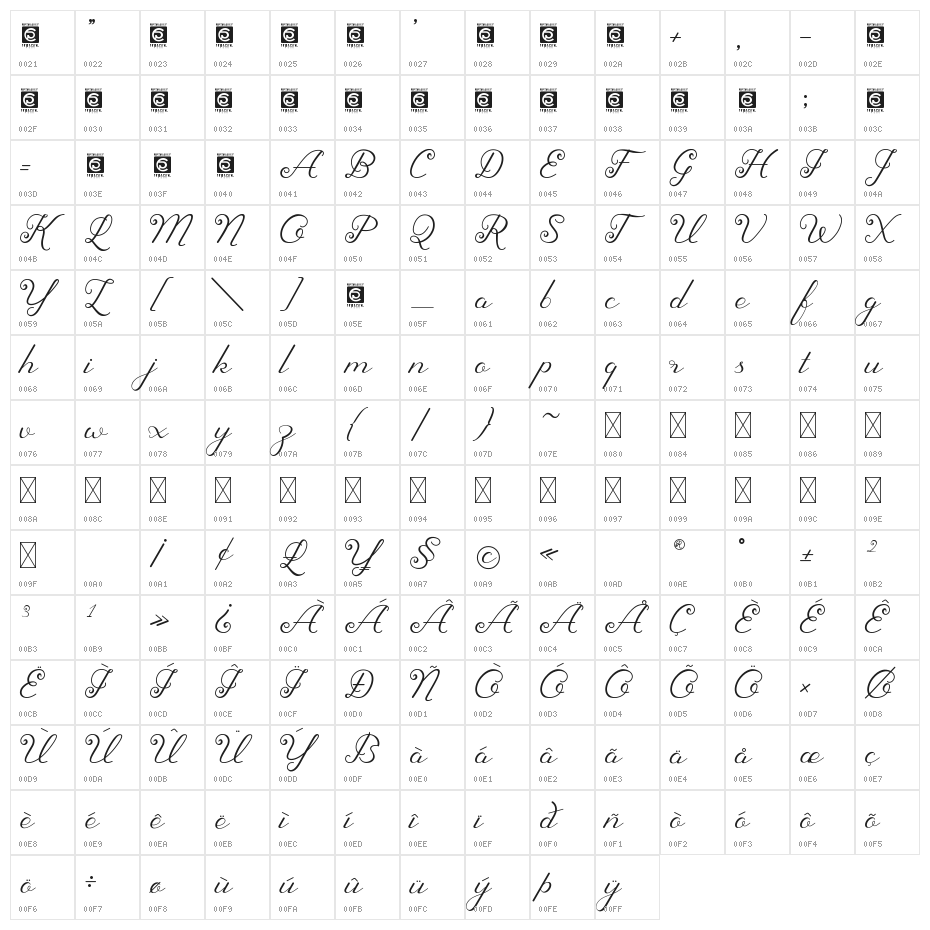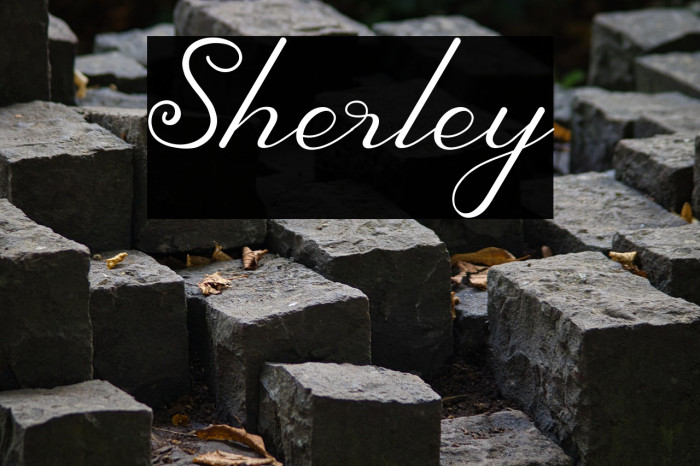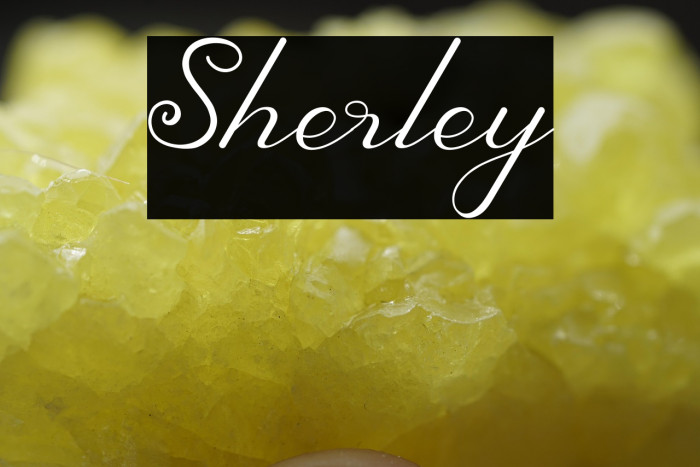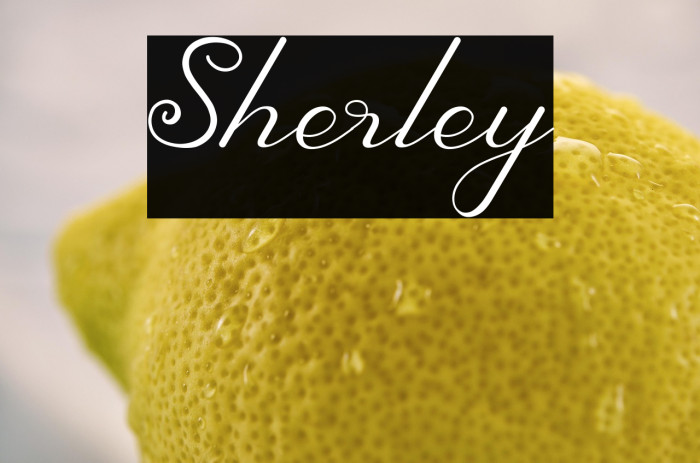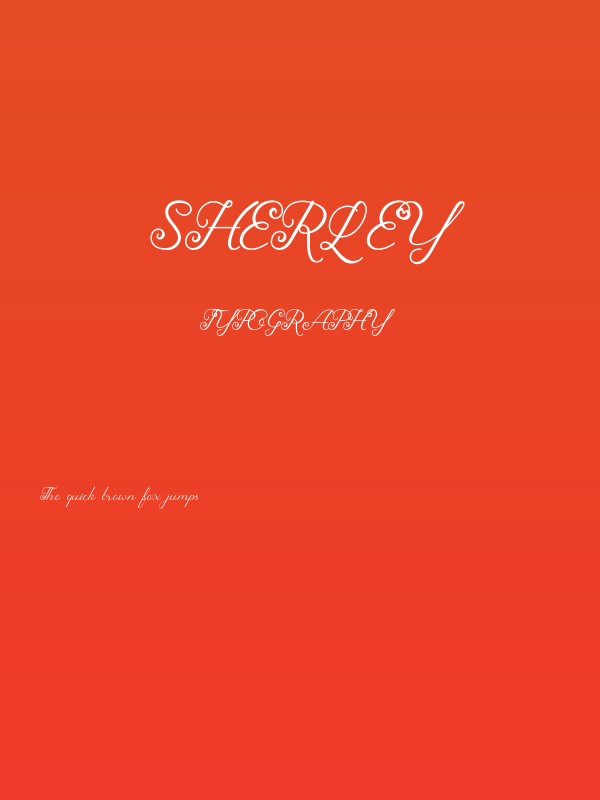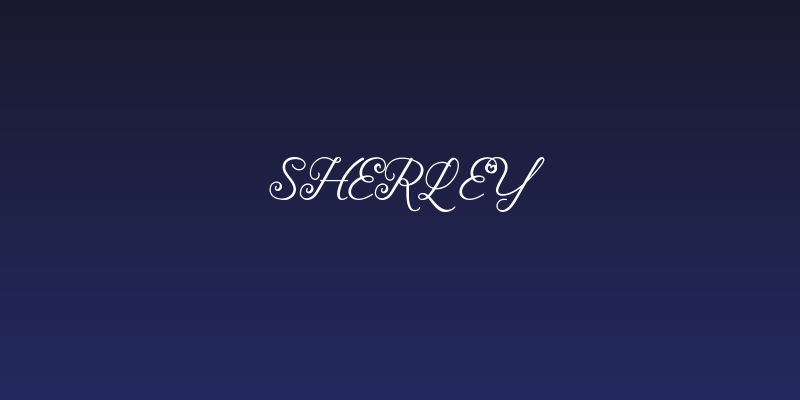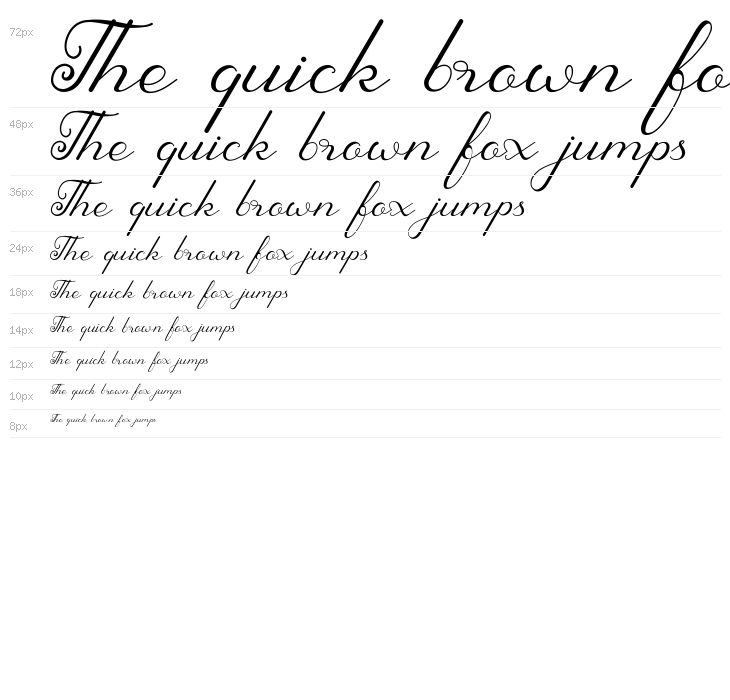
Sherley Font
Sherley Description
This elegant script font features flowing, cursive letters with a classic and sophisticated appearance. The uppercase letters are adorned with intricate loops and swashes, adding a touch of formality and grace. The lowercase letters maintain a smooth, connected style, enhancing the font's readability while preserving its decorative nature. The numerals and special characters are designed to complement the overall aesthetic, making this font suitable for a variety of formal and creative applications. Its refined style is ideal for projects that require a touch of elegance and tradition.
| Overall Style | Classic |
| Use Case | Logos, Invitations, Decorative text |
| Proposed Projects | Wedding invitations, elegant branding, formal event programs, greeting cards, and luxury packaging. |